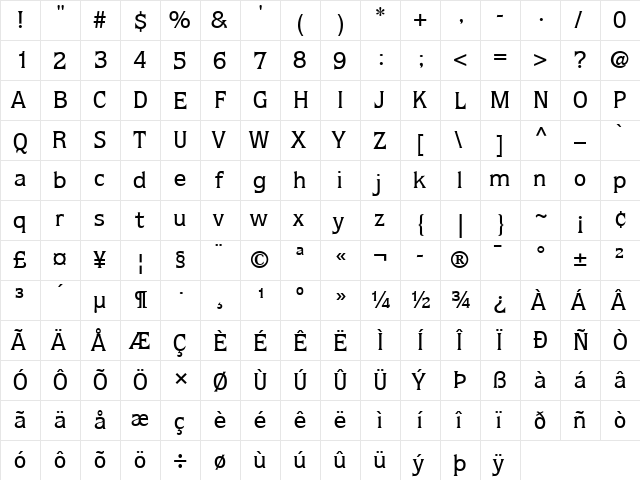
Quorum LT Medium Regular Font Preview
Quorum LT Medium Regular
Design Context for Quorum LT Medium Typeface
Quorum LT Medium offers clean, dependable letterforms without strong stylistic allegiance, making it a practical choice for designers who need flexibility. Its slender proportions lend an understated elegance to any composition.
Pro Tip: Use Quorum LT Medium in both headline and body roles to test its range before committing to a single application.